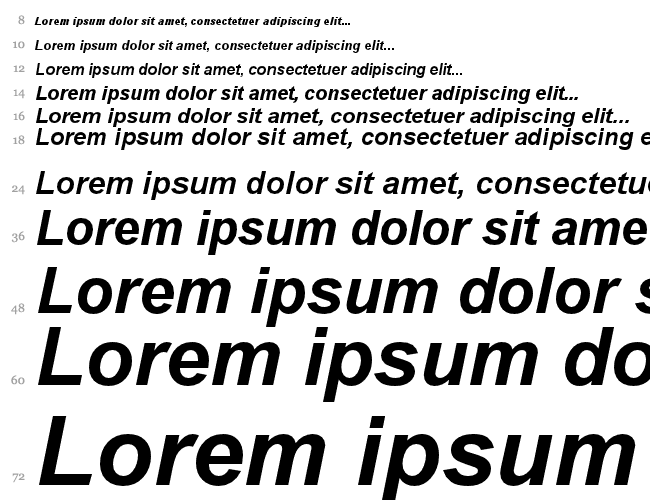
Font Arial Italic
Font Arial Italic - Made to impress, easy to use! Arial is an extremely versatile family of typefaces which can be used with equal success for text setting in reports,. Perfect for any chic, modern project. Elevate your designs with free arial, italic fonts. We have %counttypefaces% free %title% to offer for direct downloading · 1001 fonts is your favorite site for free fonts since 2001
Perfect for any chic, modern project. We have %counttypefaces% free %title% to offer for direct downloading · 1001 fonts is your favorite site for free fonts since 2001 Arial is an extremely versatile family of typefaces which can be used with equal success for text setting in reports,. Elevate your designs with free arial, italic fonts. Made to impress, easy to use!
Arial is an extremely versatile family of typefaces which can be used with equal success for text setting in reports,. Made to impress, easy to use! Elevate your designs with free arial, italic fonts. Perfect for any chic, modern project. We have %counttypefaces% free %title% to offer for direct downloading · 1001 fonts is your favorite site for free fonts since 2001
We have %counttypefaces% free %title% to offer for direct downloading · 1001 fonts is your favorite site for free fonts since 2001 Perfect for any chic, modern project. Elevate your designs with free arial, italic fonts. Made to impress, easy to use! Arial is an extremely versatile family of typefaces which can be used with equal success for text setting.
Arial Bold Italic truetype font
We have %counttypefaces% free %title% to offer for direct downloading · 1001 fonts is your favorite site for free fonts since 2001 Perfect for any chic, modern project. Made to impress, easy to use! Elevate your designs with free arial, italic fonts. Arial is an extremely versatile family of typefaces which can be used with equal success for text setting.
Made to impress, easy to use! Elevate your designs with free arial, italic fonts. We have %counttypefaces% free %title% to offer for direct downloading · 1001 fonts is your favorite site for free fonts since 2001 Arial is an extremely versatile family of typefaces which can be used with equal success for text setting in reports,. Perfect for any chic,.
Arial is an extremely versatile family of typefaces which can be used with equal success for text setting in reports,. Made to impress, easy to use! Perfect for any chic, modern project. Elevate your designs with free arial, italic fonts. We have %counttypefaces% free %title% to offer for direct downloading · 1001 fonts is your favorite site for free fonts.
Arial Font Alphabet
Perfect for any chic, modern project. Arial is an extremely versatile family of typefaces which can be used with equal success for text setting in reports,. Made to impress, easy to use! We have %counttypefaces% free %title% to offer for direct downloading · 1001 fonts is your favorite site for free fonts since 2001 Elevate your designs with free arial,.
We have %counttypefaces% free %title% to offer for direct downloading · 1001 fonts is your favorite site for free fonts since 2001 Elevate your designs with free arial, italic fonts. Perfect for any chic, modern project. Made to impress, easy to use! Arial is an extremely versatile family of typefaces which can be used with equal success for text setting.
Arial Italic Font YouTube
Arial is an extremely versatile family of typefaces which can be used with equal success for text setting in reports,. Elevate your designs with free arial, italic fonts. We have %counttypefaces% free %title% to offer for direct downloading · 1001 fonts is your favorite site for free fonts since 2001 Made to impress, easy to use! Perfect for any chic,.
Arial Bold Italic truetype font
Made to impress, easy to use! Arial is an extremely versatile family of typefaces which can be used with equal success for text setting in reports,. Perfect for any chic, modern project. Elevate your designs with free arial, italic fonts. We have %counttypefaces% free %title% to offer for direct downloading · 1001 fonts is your favorite site for free fonts.
Identity Typography Brand Guidelines
Perfect for any chic, modern project. Made to impress, easy to use! We have %counttypefaces% free %title% to offer for direct downloading · 1001 fonts is your favorite site for free fonts since 2001 Arial is an extremely versatile family of typefaces which can be used with equal success for text setting in reports,. Elevate your designs with free arial,.
Arial Italic Font Free Dafont Free
Made to impress, easy to use! Elevate your designs with free arial, italic fonts. Arial is an extremely versatile family of typefaces which can be used with equal success for text setting in reports,. Perfect for any chic, modern project. We have %counttypefaces% free %title% to offer for direct downloading · 1001 fonts is your favorite site for free fonts.
Elevate your designs with free arial, italic fonts. Perfect for any chic, modern project. Arial is an extremely versatile family of typefaces which can be used with equal success for text setting in reports,. Made to impress, easy to use!